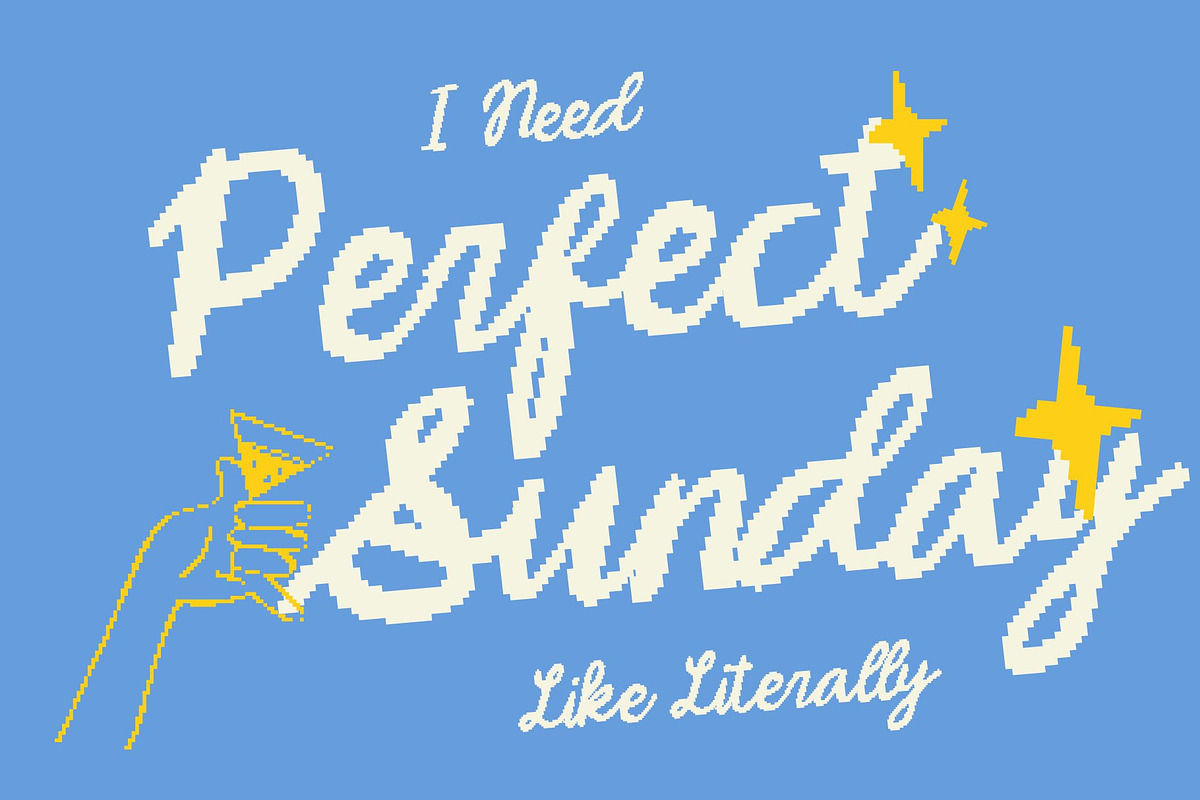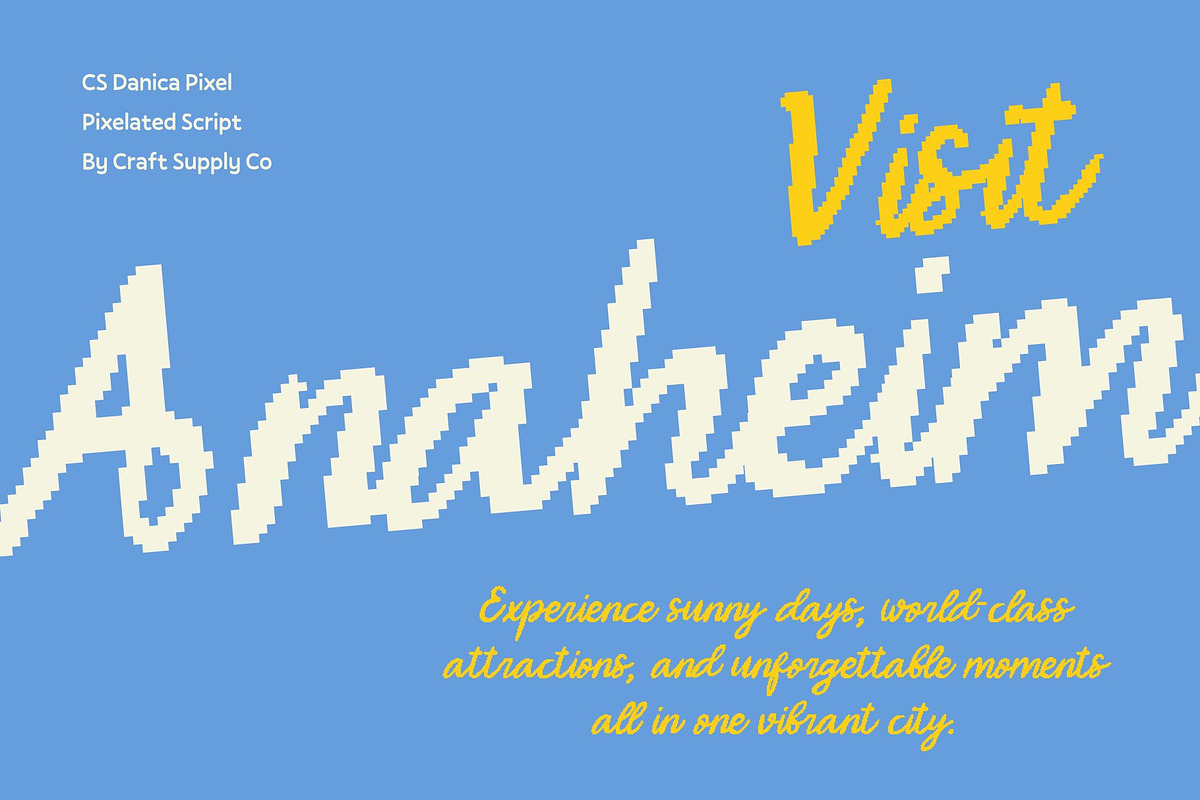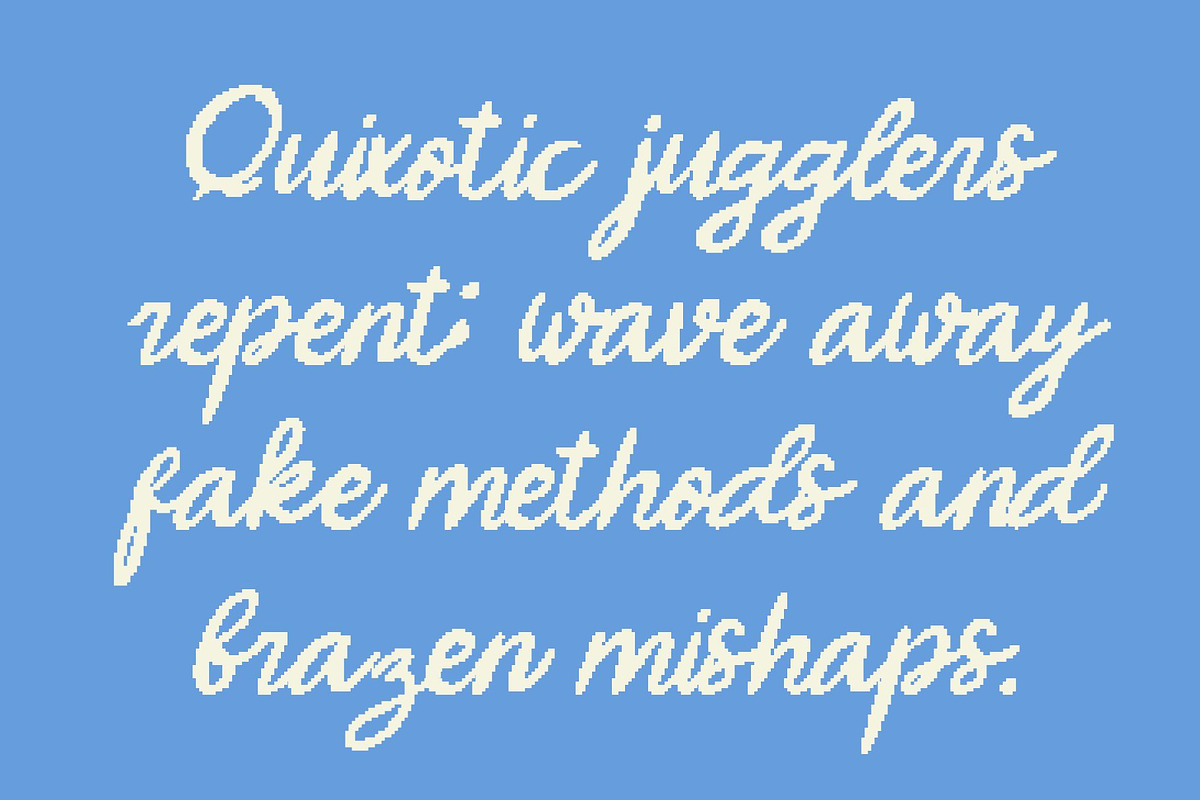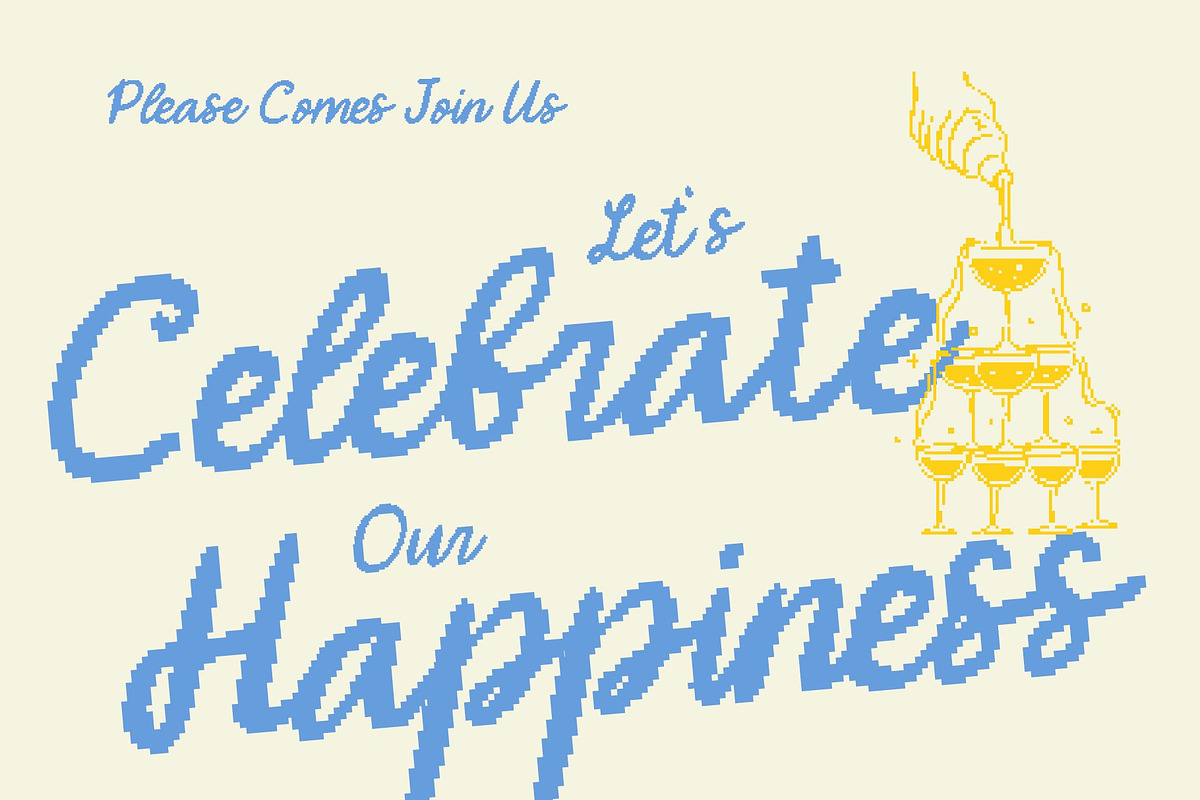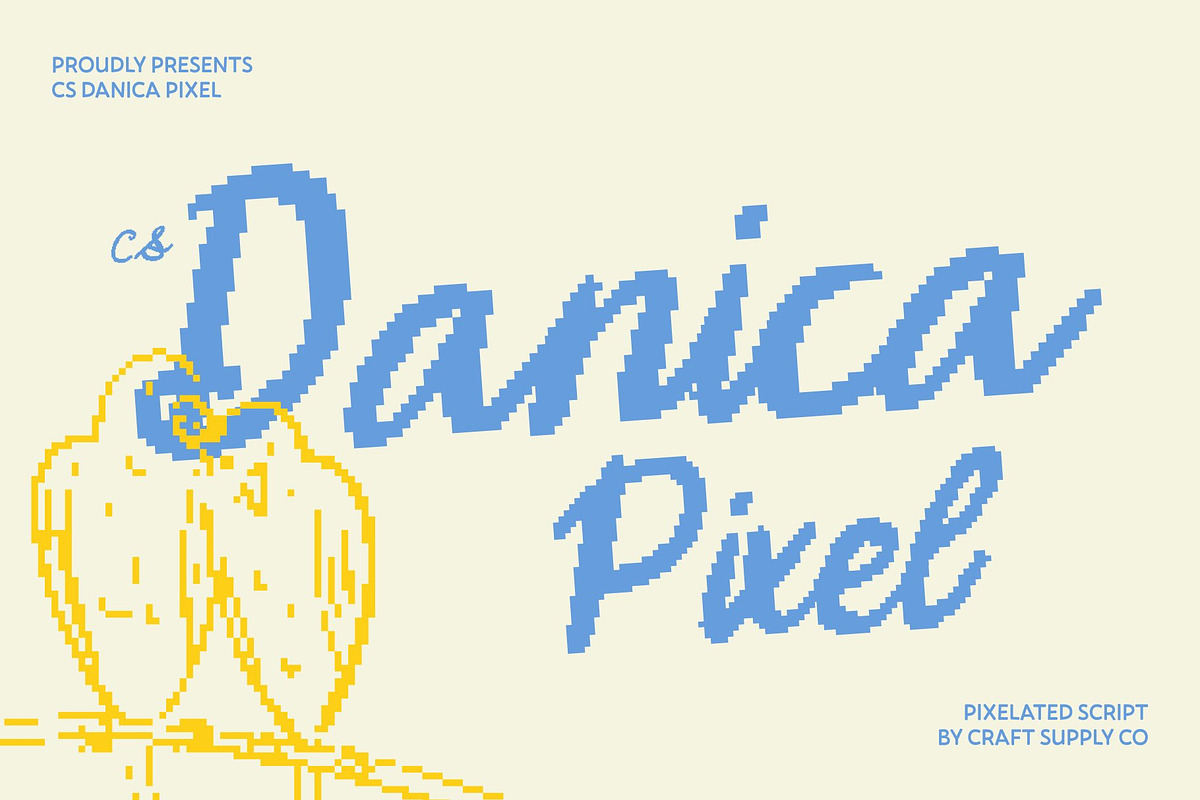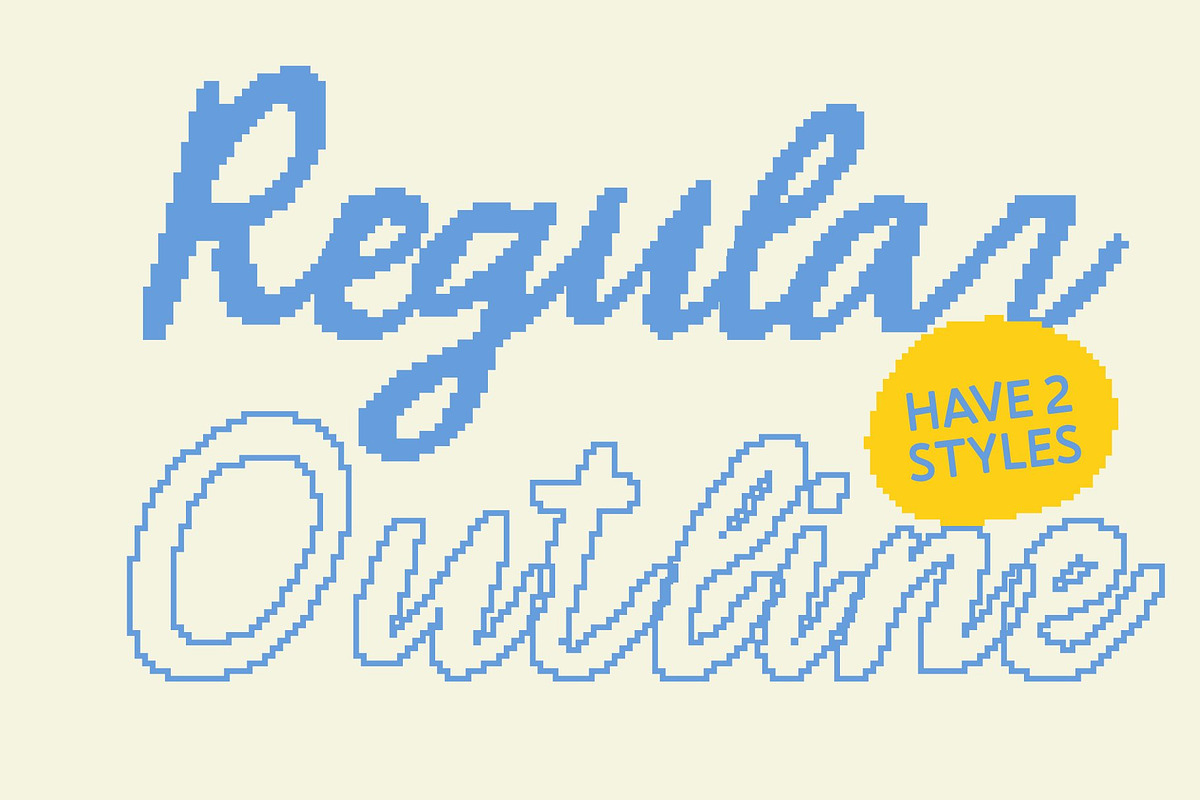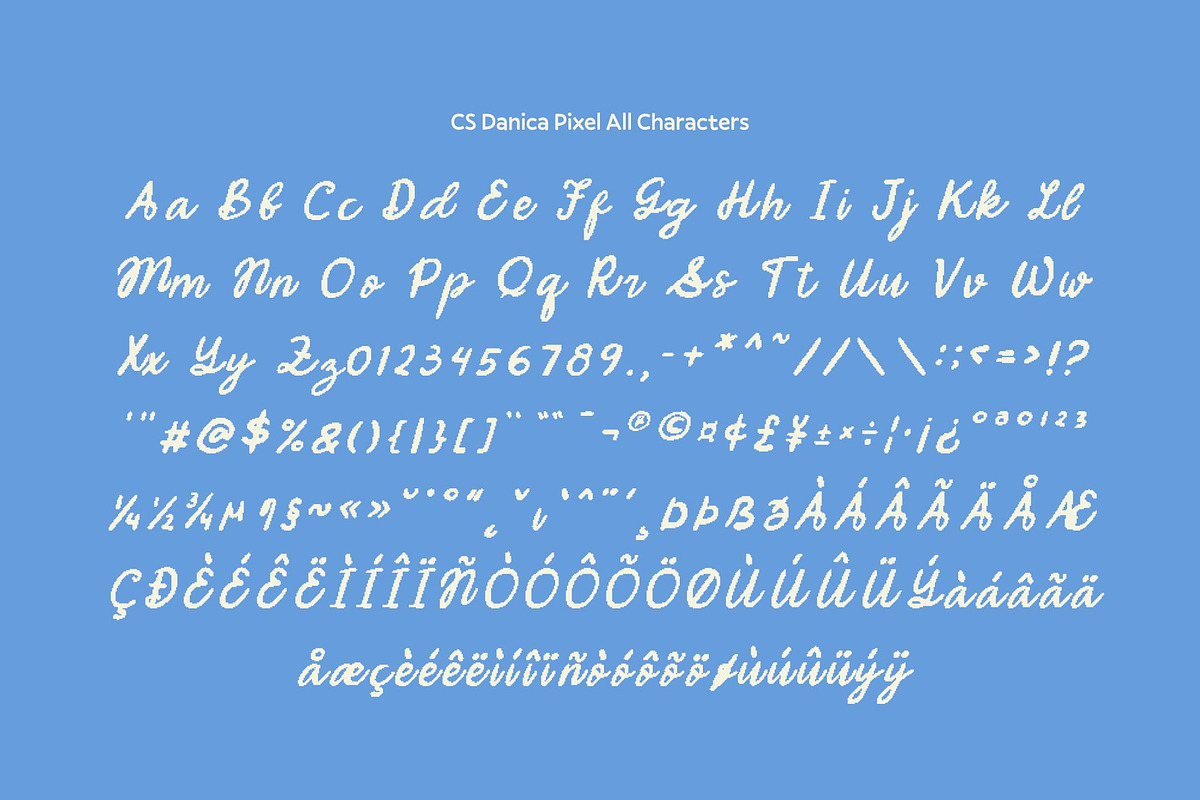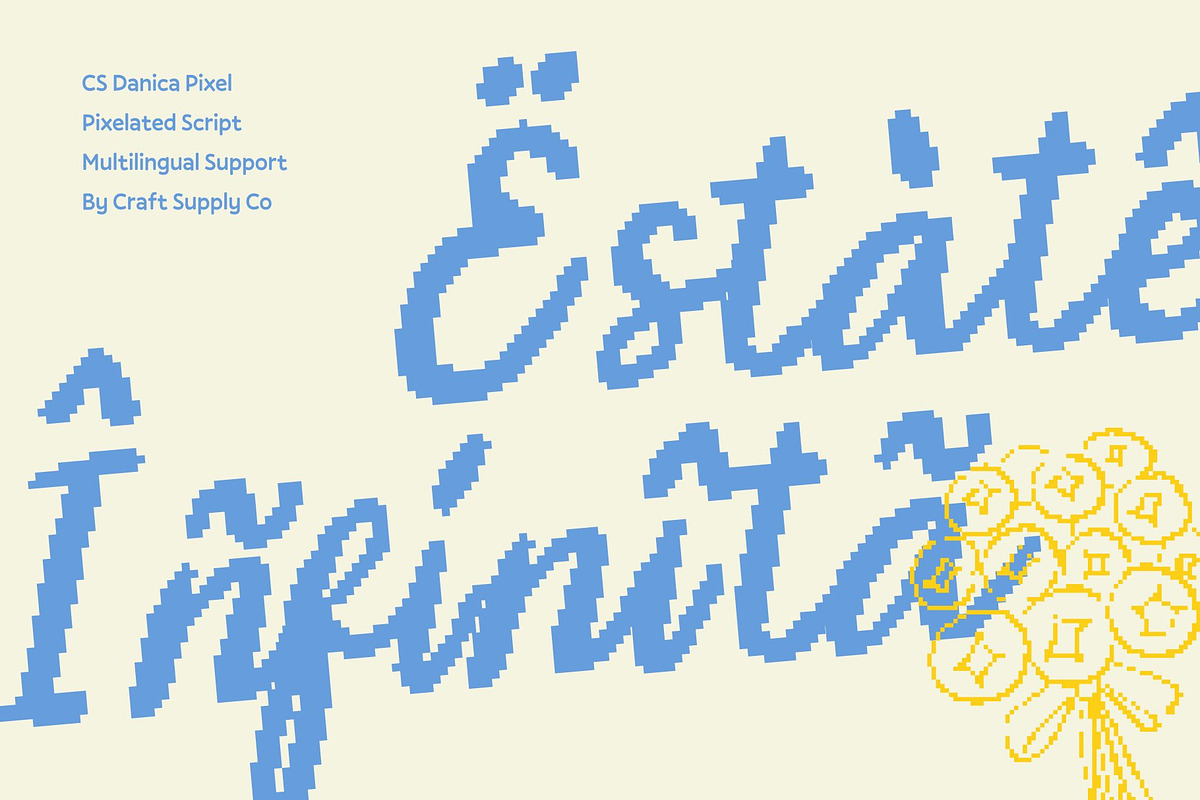
CS Danica Pixel
CS Danica Pixel – Delicate Expression with Handwritten Charm
Handwritten Pixel Script Font with Artistic Personality This is a delicate handwritten script font designed to express creativity and individuality, refined through subtle pixel precision. Graceful strokes and flowing connections create a natural handwritten feel that remains polished and digitally balanced. Its charm lies in expressive curves and gentle flourishes that make each letter feel intentional, artistic, and thoughtfully crafted.
Creative Flourishes with Refined Pixel Detail The beauty of this font comes from its carefully designed flourishes and organic movement, shaped within a refined pixel structure. Each character flows smoothly into the next, creating a harmonious rhythm that feels elegant yet creative. These details add personality without overpowering the composition, maintaining clarity and softness in every design.
Delicate Style for Elegant Visual Storytelling With its soft handwritten presence, this font is ideal for projects centered on emotion, beauty, and personal expression. The font conveys warmth, authenticity, and quiet sophistication, making it perfect as a primary typographic feature or a graceful accent that enhances storytelling and visual mood.
Perfect for Branding, Invitations, and Fashion-Focused Design This font is perfect for branding, invitations, fashion graphics, packaging, and editorial layouts. Its elegant handwritten style combined with subtle digital refinement makes it especially suitable for beauty brands, wedding stationery, lifestyle products, and boutique visuals that value artistry and refinement.
- CS Danica Pixel Regular
- CS Danica Pixel Outline